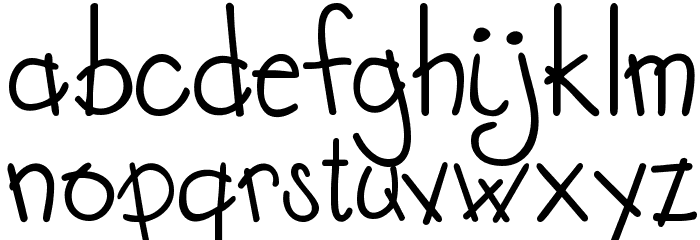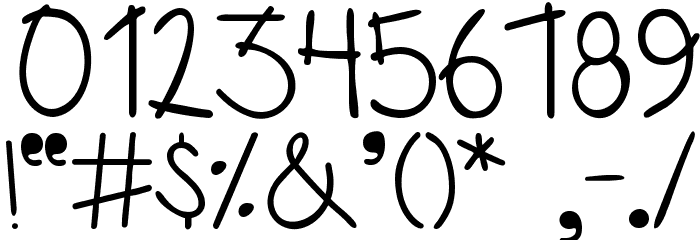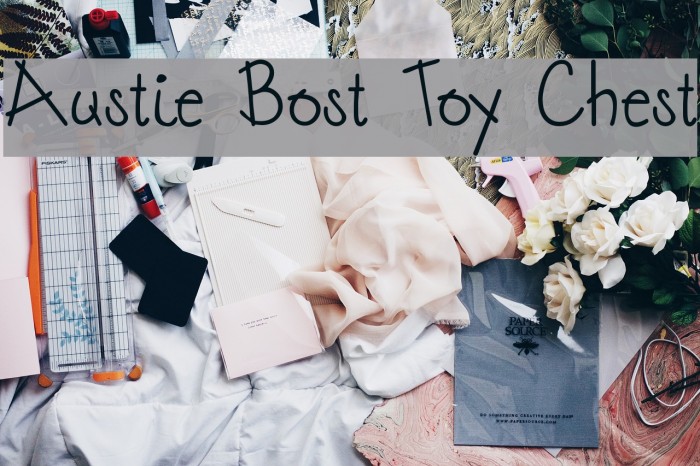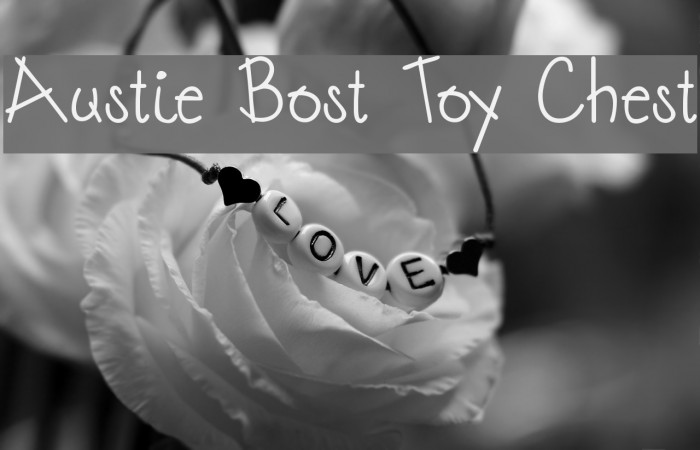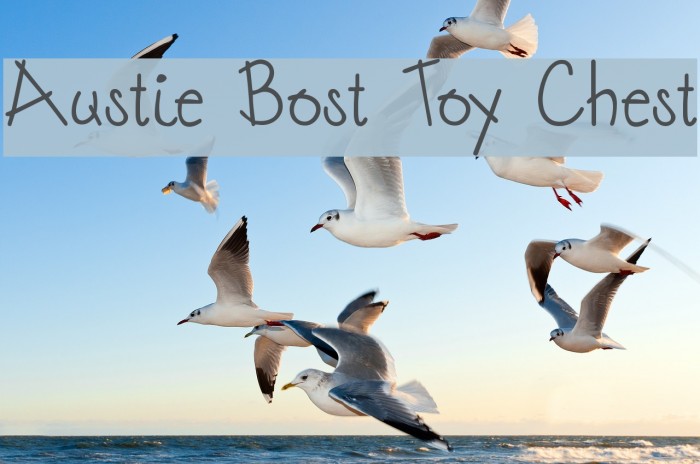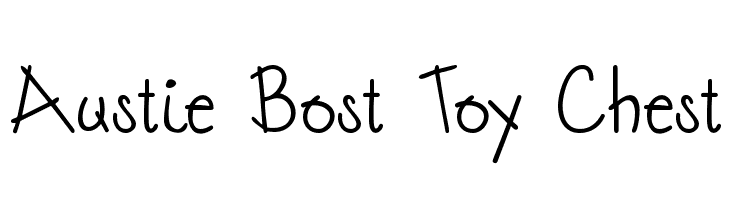
Austie Bost Toy Chest Font
This playful and whimsical font features a handwritten style with a childlike charm. The letters are slightly irregular, giving it a casual and friendly appearance. The strokes are consistent in thickness, providing a uniform look while maintaining a sense of spontaneity. The rounded edges and soft curves add to its approachable and fun aesthetic. This font is perfect for projects that require a touch of creativity and warmth, such as children's books, playful branding, or casual invitations.
A playful, handwritten font with a whimsical and childlike charm.
- Proposed Projects: Ideal for children's books, playful branding, casual invitations, and creative projects.
- Overall Style: Playful
- Use Case: Headlines, Logos, Invitations